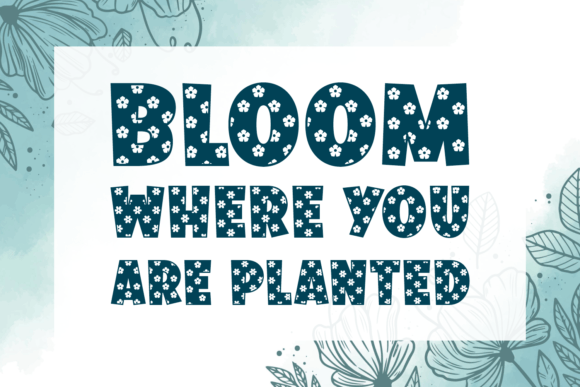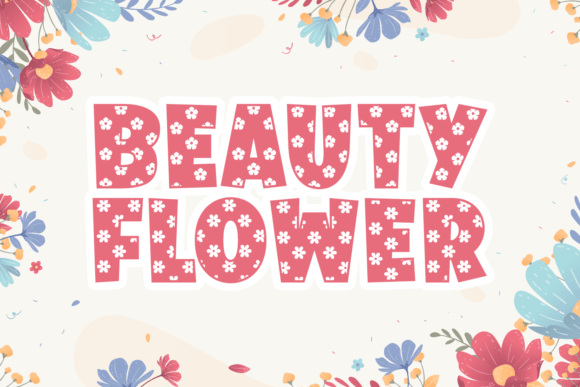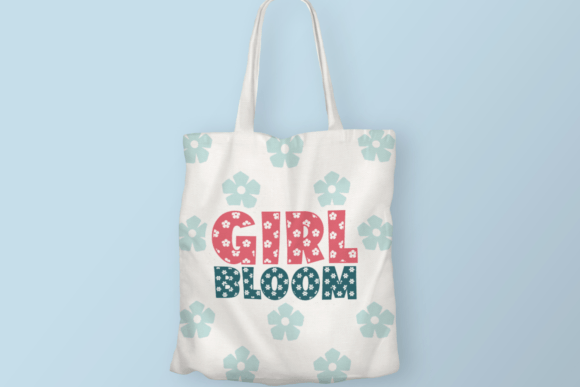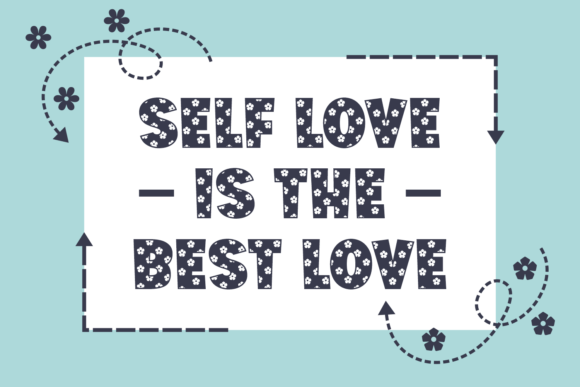
Introduction to Sealy Bloom Font
Have you ever stumbled upon a design resource that sparks your creativity and leaves you in awe? For designers, it’s those moments of serendipity that remind us why we love our craft. For me, that moment came when I discovered the enchanting Sealy Bloom Font.
This stunning decorative font combines elegant letterforms with intricate floral motifs, creating a whimsical and enchanting aesthetic that’s perfect for a wide range of creative projects. Whether you’re designing invitations, greeting cards, posters, or branding materials, Sealy Bloom Font brings a touch of magic and romance to every project. With its high-quality design and transparent background, this font is a valuable asset for designers looking to elevate their work.
What sets Sealy Bloom Font apart is its unique blend of beauty and functionality. Its delicate flowers and intricate details make it a standout design resource that’s sure to captivate audiences. And the best part? You can download it for free, making it an accessible and versatile tool for designers of all levels.
Key Features of Sealy Bloom Font
- High-quality design resource ideal for creative projects, offering a delicate and elegant touch.
- Sealy Bloom Font features a unique, hand-drawn style with intricate details, setting it apart from other fonts in its category.
- Perfect for use in invitations, greeting cards, and other design projects requiring a touch of whimsy and sophistication.
Honest Review: Sealy Bloom Font
I recently had the chance to try out the Sealy Bloom Font for a creative project and I must say, it’s been a great addition to my design resource collection. The font is available for free download and offers a high quality, unique look that’s perfect for modern designs.
- ✨ Unique and playful design that adds a touch of elegance to any project
- ✨ Transparent background makes it easy to use with various backgrounds
- ⚠️ Limited character set, which can make it difficult to use for long texts
- ⚠️ Not ideal for complex designs that require a lot of customization
Overall, I’m really impressed with the Sealy Bloom Font and I think it’s a great addition to any designer’s collection. With its unique design and high quality, it’s perfect for adding a touch of creativity to any project.
The Sealy Bloom Font is a versatile design resource that’s perfect for a variety of projects, including:
Brochures and flyers
Posters and signs
Social media graphics and ads
Presentations and documents